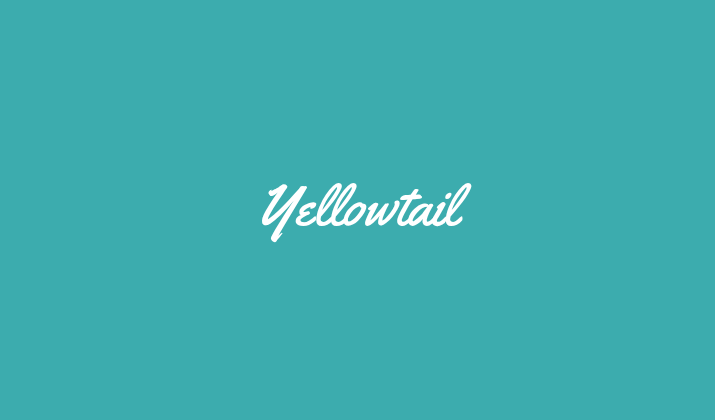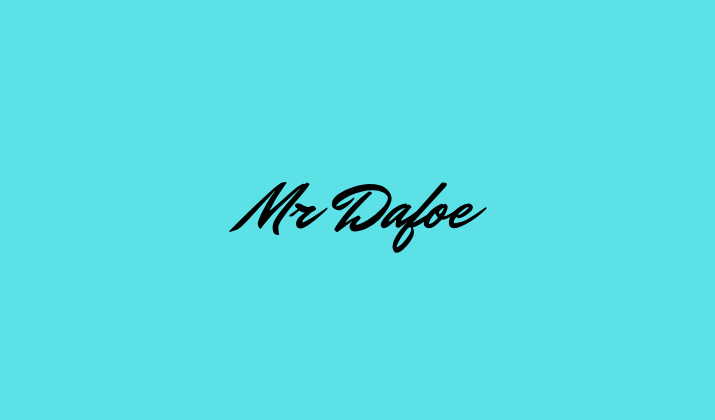
Fonts do more than just convey words.
They express mood, emotion, and character. And when it comes to adding personality and elegance to a design, cursive fonts are unmatched.
These flowing, script-style fonts evoke everything from casual charm to timeless sophistication.
Be it designing a wedding invitation, branding a boutique, or creating eye-catching Instagram posts, cursive fonts amplify your designs taking them to the next level.
Canva, one of the most user-friendly graphic design platforms, offers a generous library of free cursive fonts that cater to various styles and purposes.
If you truly want your creations to stand out, take a look at the list below. I’ve handpicked some of the best cursive fonts available for free on Canva.
1. Playlist Script
Playlist Script is a charming hand-drawn cursive font that feels both fresh and artistic.
Its slightly imperfect, brush-stroke texture gives it a highly personalized look, almost as if you’ve written it yourself with a calligraphy pen.
This font is perfect for creative projects that aim to feel authentic and expressive—think mood boards, Pinterest graphics, or handmade product labels.
Because it includes both script and sans-serif styles, you can pair them together for a beautifully cohesive design.
Playlist Script shines in designs that require a casual, artsy, and handcrafted touch.
2. Great Vibes
If you’re aiming for elegance and sophistication, Great Vibes is a fantastic choice.
This script font features long, fluid strokes and beautifully looping letterforms that look like they’ve been penned with a graceful fountain pen.
It’s ideal for high-end branding, formal invitations, and anything that demands a refined aesthetic.
What sets Great Vibes apart is its readability—it remains legible even with its elaborate style.
Whether you’re designing a wedding suite, a beauty brand logo, or a romantic quote graphic, Great Vibes will bring just the right amount of class and polish.
3. Dancing Script
True to its name, Dancing Script feels energetic and full of life.
Inspired by vintage cursive styles from the mid-20th century, it has a retro charm that’s perfect for designs that want to feel approachable yet stylish.
The letters bounce slightly along the baseline, giving the text a joyful rhythm that mimics handwritten notes or cheerful signage.
Dancing Script is particularly effective for food branding, lifestyle blogs, and playful invitations.
It’s a font that doesn’t take itself too seriously, yet still maintains a strong visual impact.
4. Allura
Allura is a sleek, smooth, and highly readable script font that blends modern minimalism with classic curves.
It has an understated elegance that works well in both professional and personal settings. The subtle strokes and minimal flourishes make it incredibly versatile.
You can use it for logos, social media graphics, or personal stationery without it overwhelming your design.
Allura’s beauty lies in its simplicity; it’s graceful without being overly decorative. It’s the perfect choice when you want your design to whisper sophistication rather than shout it.
5. Pacifico
Bold, laid-back, and undeniably cool, Pacifico captures the spirit of summer and sunshine.
It was inspired by American surf culture of the 1950s and carries that easygoing, beachy vibe through its thick, curvy letterforms.
This font is ideal for projects that want to appear fun, friendly, and vibrant. Use it for travel blogs, drink packaging, event flyers, or any design that could use a splash of personality.
Despite its boldness, Pacifico maintains good readability, which makes it a standout font for casual yet eye-catching designs.
6. Satisfy
Satisfy lives up to its name by delivering an aesthetically pleasing, smoothly flowing cursive style.
It looks like it was written with a high-quality marker, with each stroke gliding effortlessly into the next.
Satisfy strikes a unique balance. It’s sophisticated enough for elegant invitations, but modern and casual enough for personal branding and lifestyle content.
This font works beautifully in both large and small text sizes, which makes it suitable for quotes, subheadings, or even logo text. It’s an excellent all-rounder when you need charm and readability wrapped in one.
7. Lobster
Arguably one of the most recognizable script fonts on the web, Lobster makes a bold and confident statement.
With its thick strokes, connected characters, and retro flair, it commands attention while still being surprisingly versatile.
Unlike many cursive fonts, Lobster is designed to work as a display font—great for headlines, logos, menus, and badges.
It feels both classic and contemporary, especially when paired with minimalist or vintage-style visuals.
Final Thoughts
Canva’s free font library gives you access to a diverse range of cursive styles.
Each of the fonts on this list offers a different vibe. Some lean romantic and luxurious, while others are artistic, bold, or just plain fun.
Try pairing one of these script fonts with a strong sans-serif to create balance, or let it stand alone to showcase its beauty.